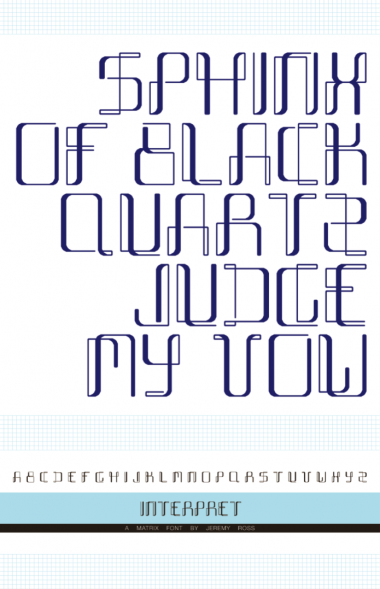
Highly original! :)
Very creative...good work.
Totally agree...original and very creative
Really nice work.
It would be interesting to see how you deal with a lowercase
Thanks y'all. I will post a design using this typeface soon. Are there any letters you particularly like or dislike?
I will most likely add lowercase and numbers to the mix. So check back in a month or so, if you like (I'm pretty busy).
I really like the D, J, and S.
fantastic.
Uniquely stylized. I particularly like the vertical stems with both thick and thin lines. The X seems to be the only character that overlaps itself in a non-perpendicular angle. Each letter seems to conform to the style while maintaining individuality.
Very nice work Jeremy. I loved watching the progression of this typeface from the very beginning to where it is now. I think you resolved all your letterforms very successfully. Great job!
Amazing!
my INTERPRET type poster
funtastic!
these are super fun.
i can't wait to play in layout with this font
Gostei